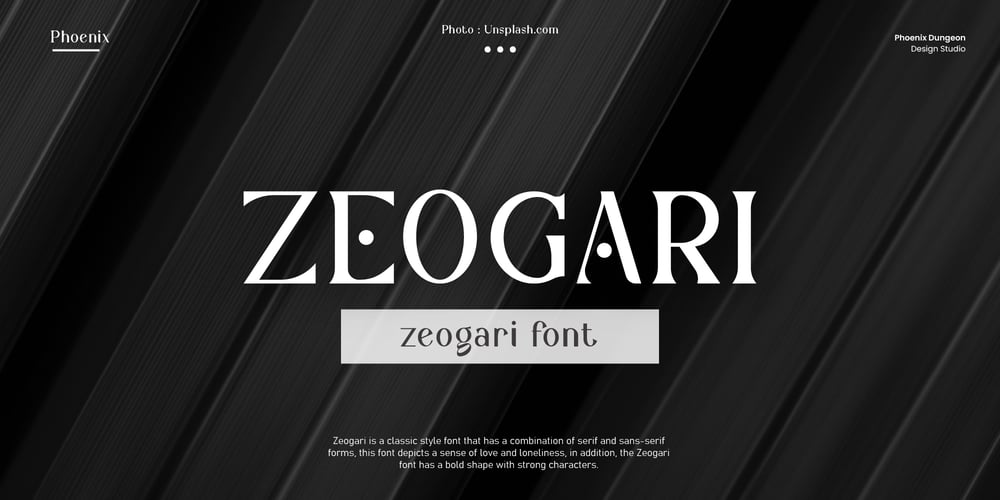
Zeogari Font Family was designed by Alif Naufal Muzakki and published by Phoenix Group. Zeogari contains 1 styles and family package options. Zeogari is a classic style font that has a combination of serif and sans-serif forms, this font depicts a sense of love and loneliness, in addition, the Zeogari font has a bold shape with strong characters.